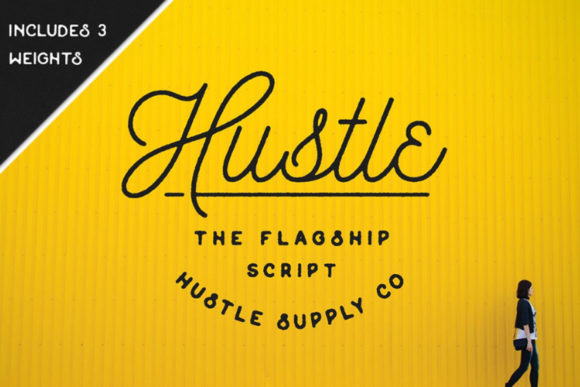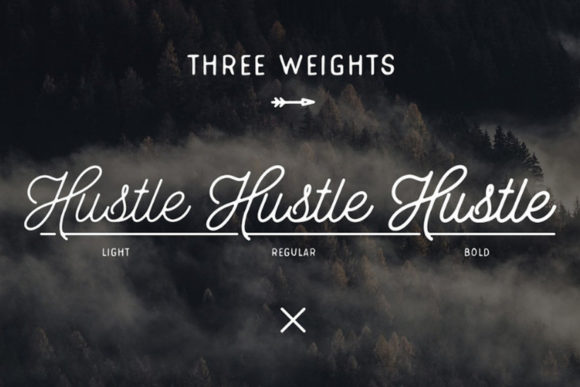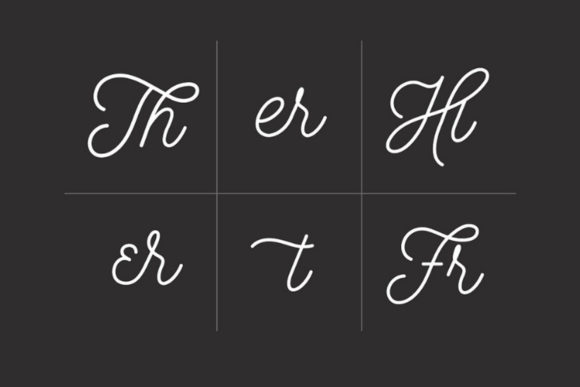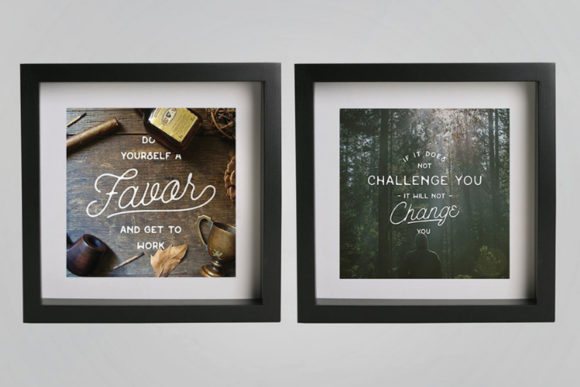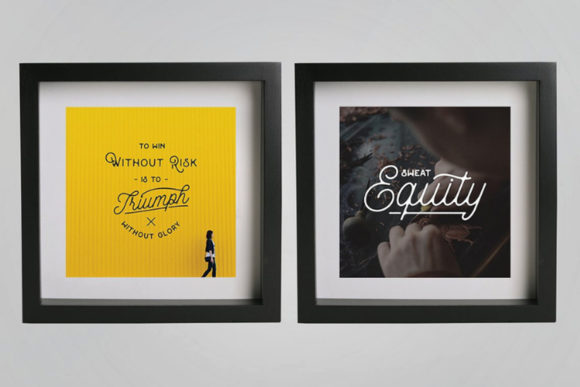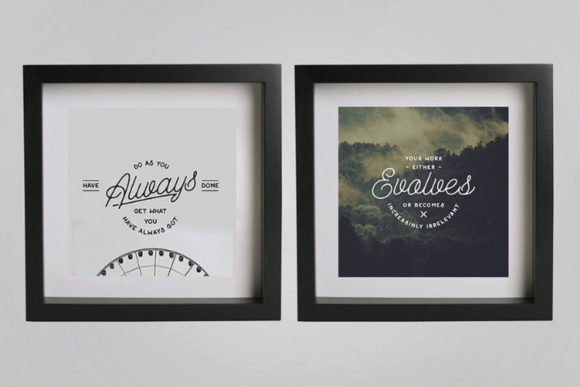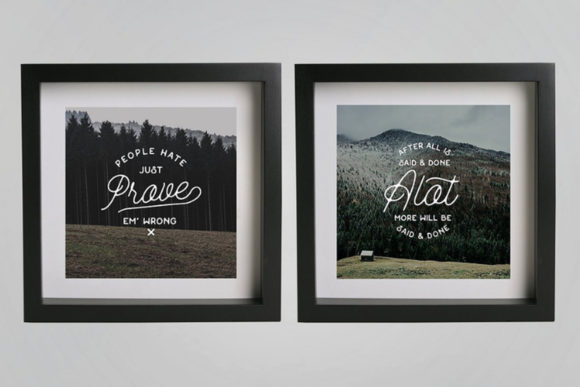
Hustle Font
About Hustle Font
Hustle is a mono-weight script typeface that includes 3 weights; Light, Regular, Bold. Get inspired by its contemporary coolness!